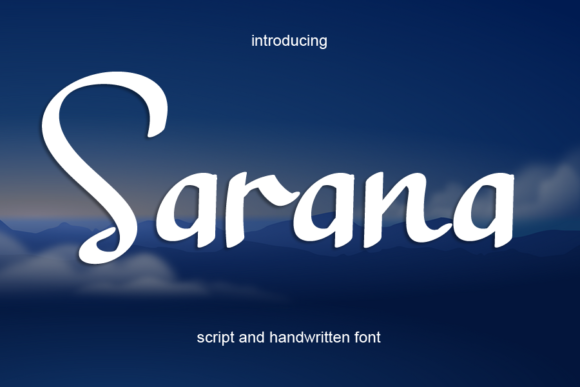
Unleash the Power of Sarana: A Script Font Symphony for UI/UX Designers
In a world saturated with digital designs, captivating your audience and leaving a lasting impression has become increasingly challenging. As a UI/UX designer, you understand the importance of every visual element in creating a seamless and engaging user experience. Allow us to introduce Sarana, a playful and well-rounded handwritten font that will transform your designs into masterpieces.
With Sarana's gentle and flowing strokes, you'll add a touch of joy and romance to each project you undertake. Its elegant curves and whimsical characters will breathe life into your digital creations, captivating users with their unique charm. Whether you're designing a user interface, crafting a logo, or creating marketing materials, Sarana will elevate your designs to new heights.
Step into a world of endless possibilities where your creativity knows no bounds. Sarana's versatility knows no limits, adapting seamlessly to a wide range of design projects. It effortlessly blends with various color palettes and design styles, allowing you to create cohesive and visually stunning user interfaces. Unleash your imagination and let Sarana's enchanting aura work its magic.
Immerse yourself in the world of user-centric design, where every element serves a purpose. Sarana's carefully crafted characters ensure optimal readability, enhancing the overall user experience. Its legible and inviting letterforms guide users through your designs effortlessly, creating an intuitive and seamless journey. Let Sarana become your trusted partner in creating user interfaces that not only look beautiful but also function flawlessly.
Elevate your UI/UX design prowess with Sarana, a font meticulously designed to enhance user interaction. Its intricate details and expressive strokes add a touch of personality and depth to your creations. Say goodbye to mediocrity and embrace a world of captivating designs that resonate with your users. With Sarana at your fingertips, you'll create user interfaces that leave a lasting impression and drive engagement like never before.